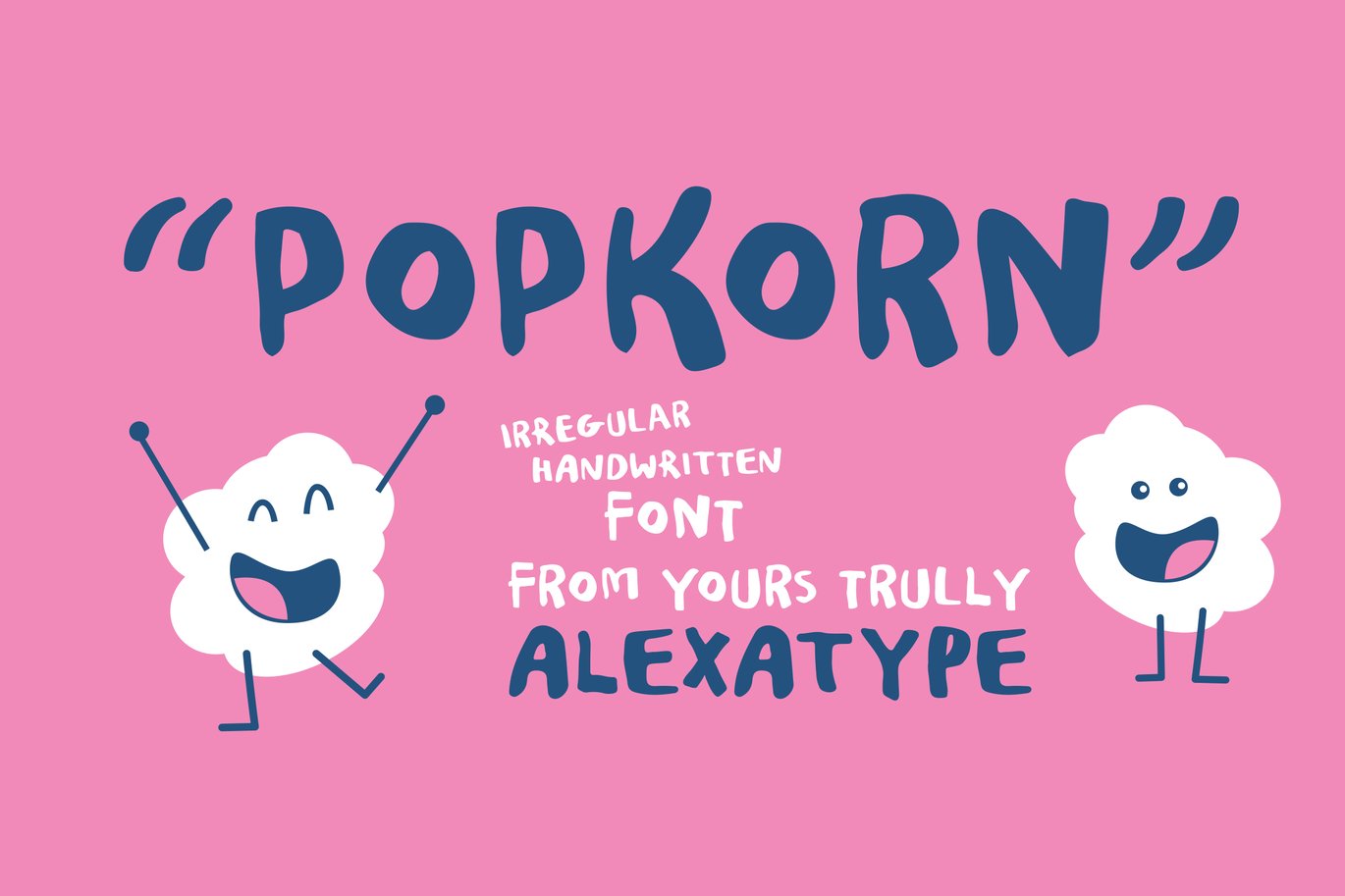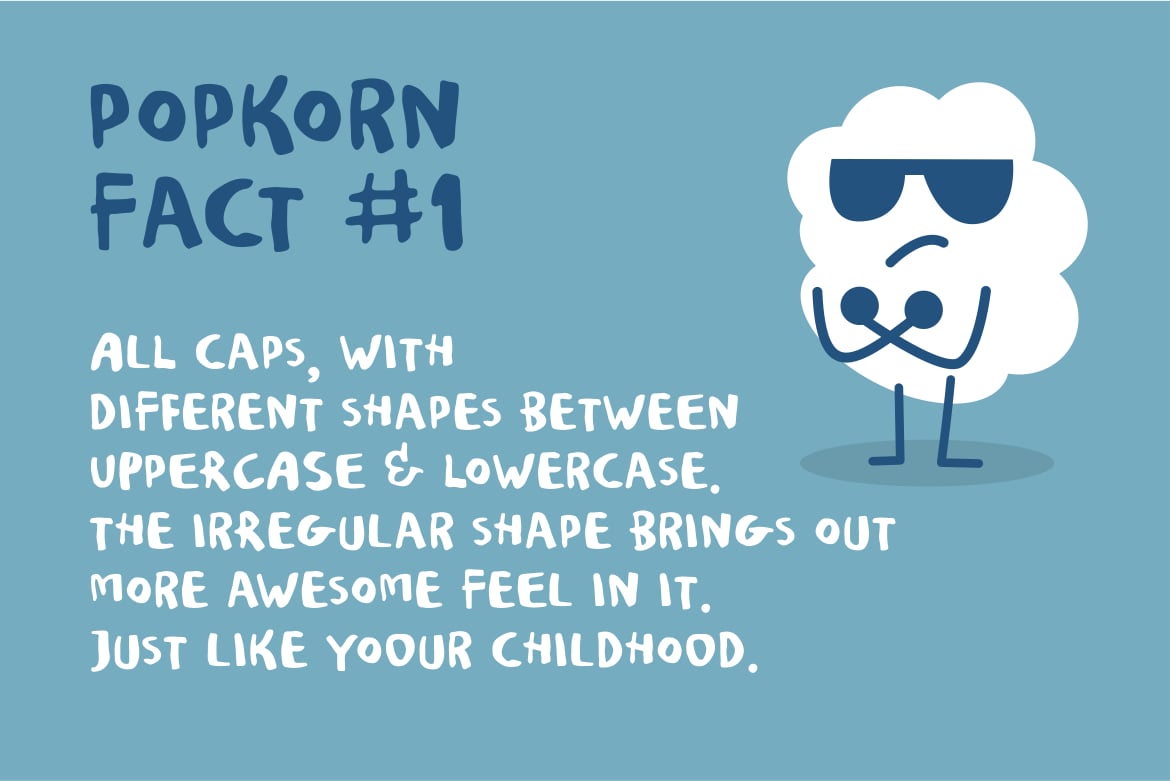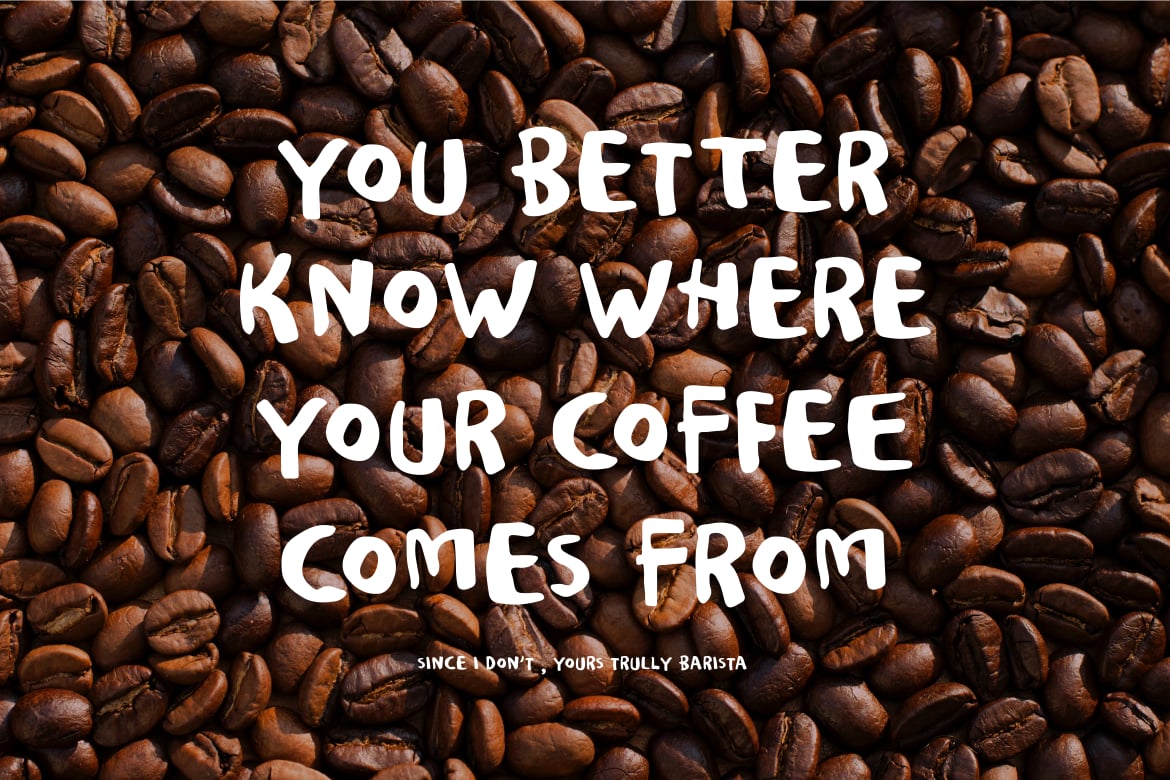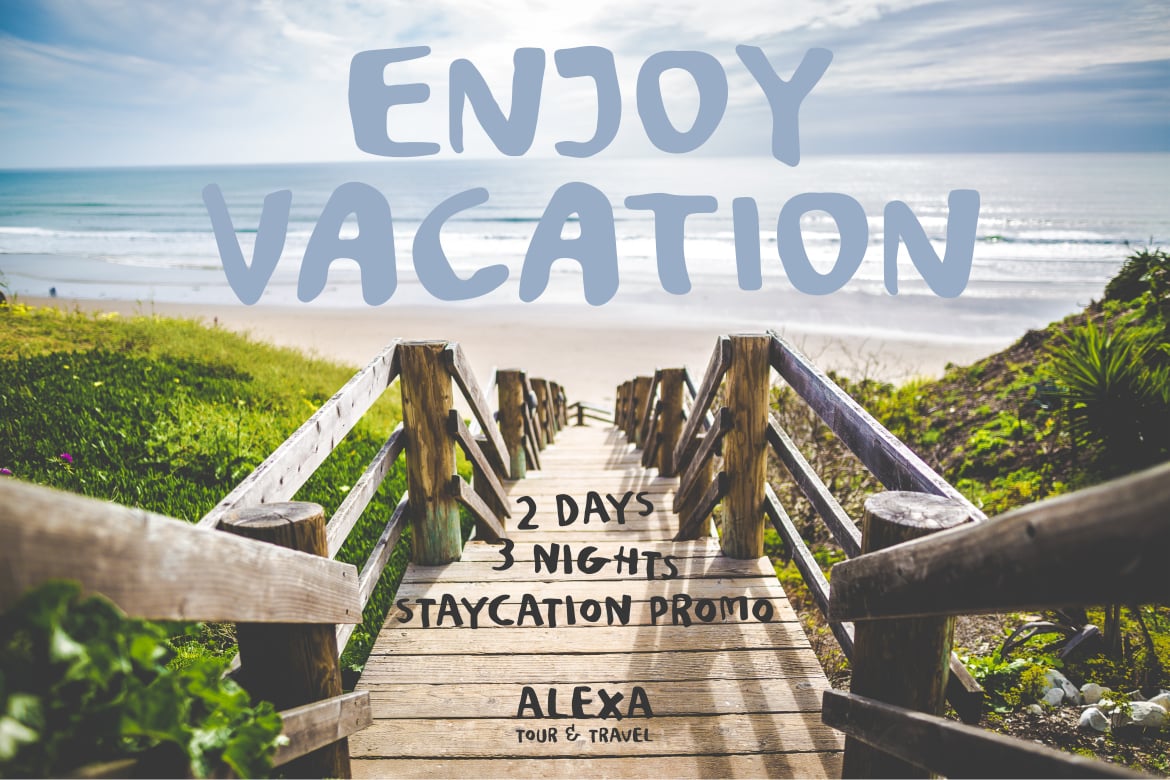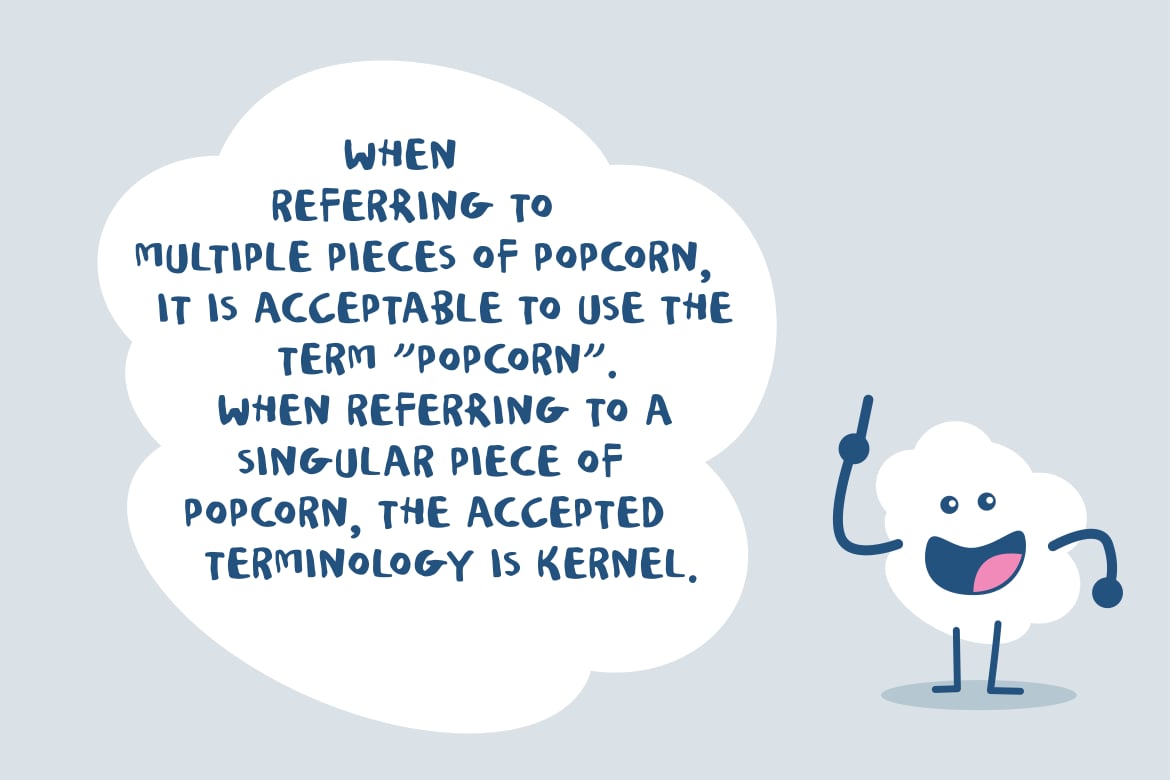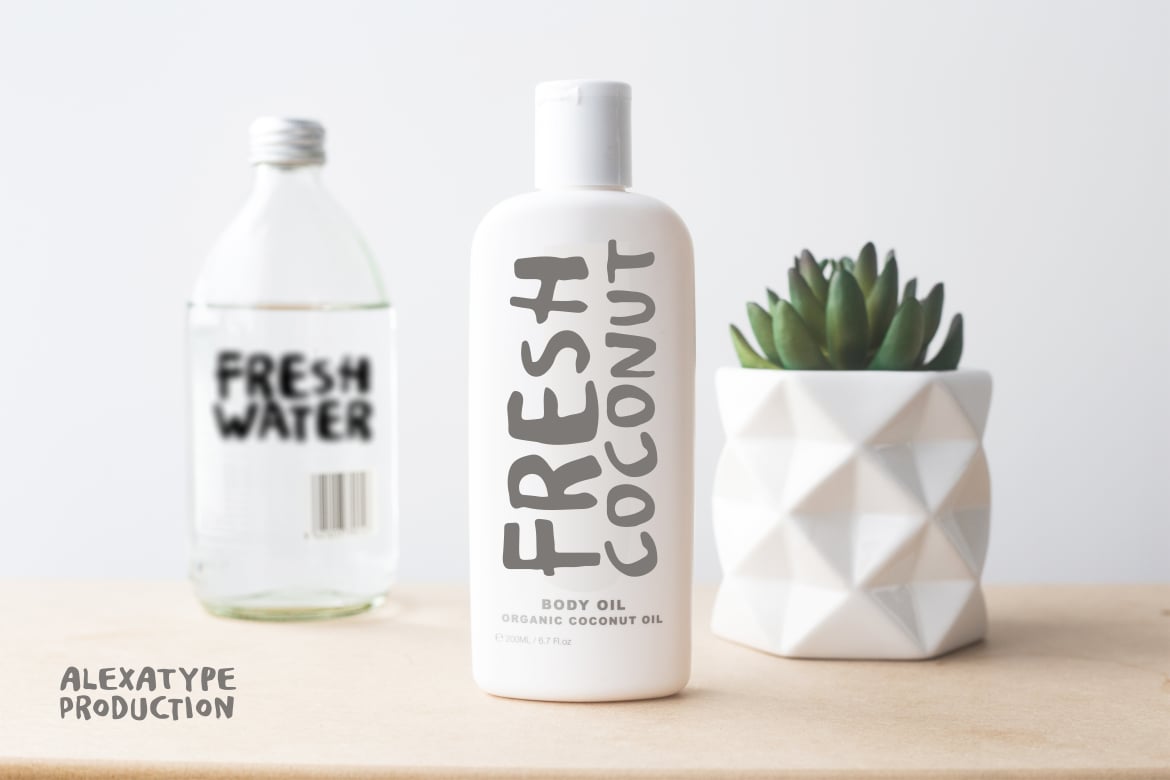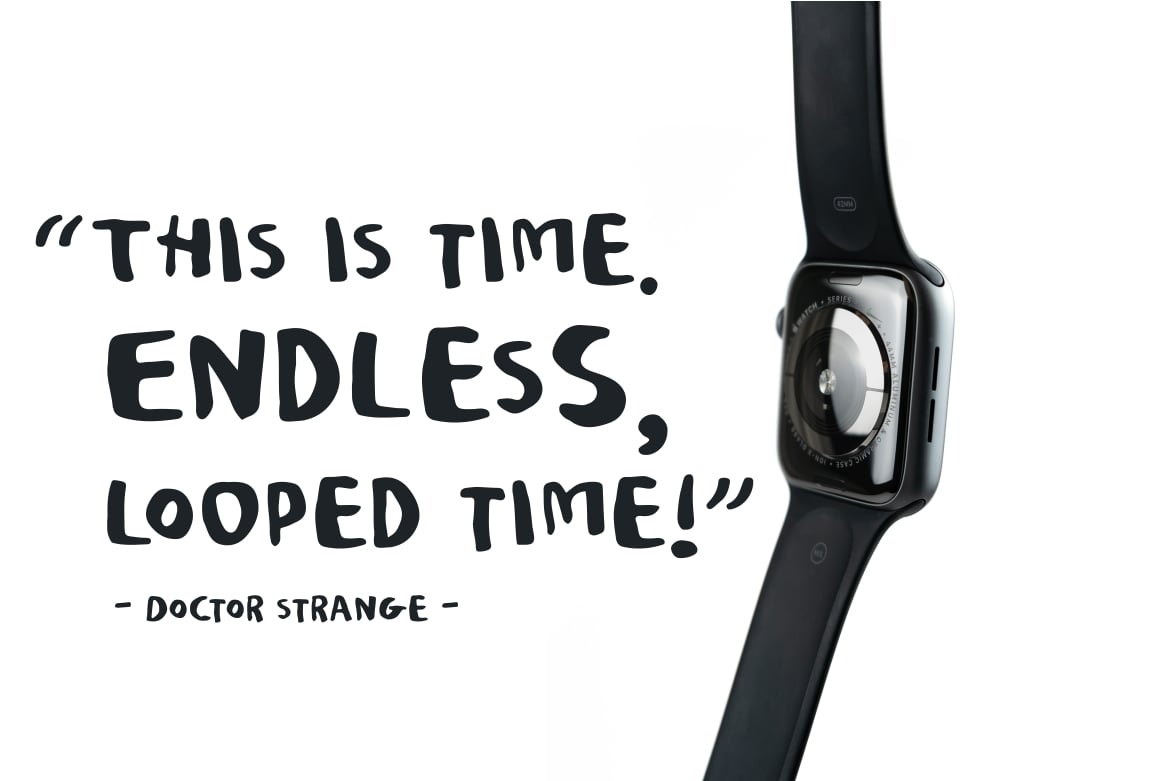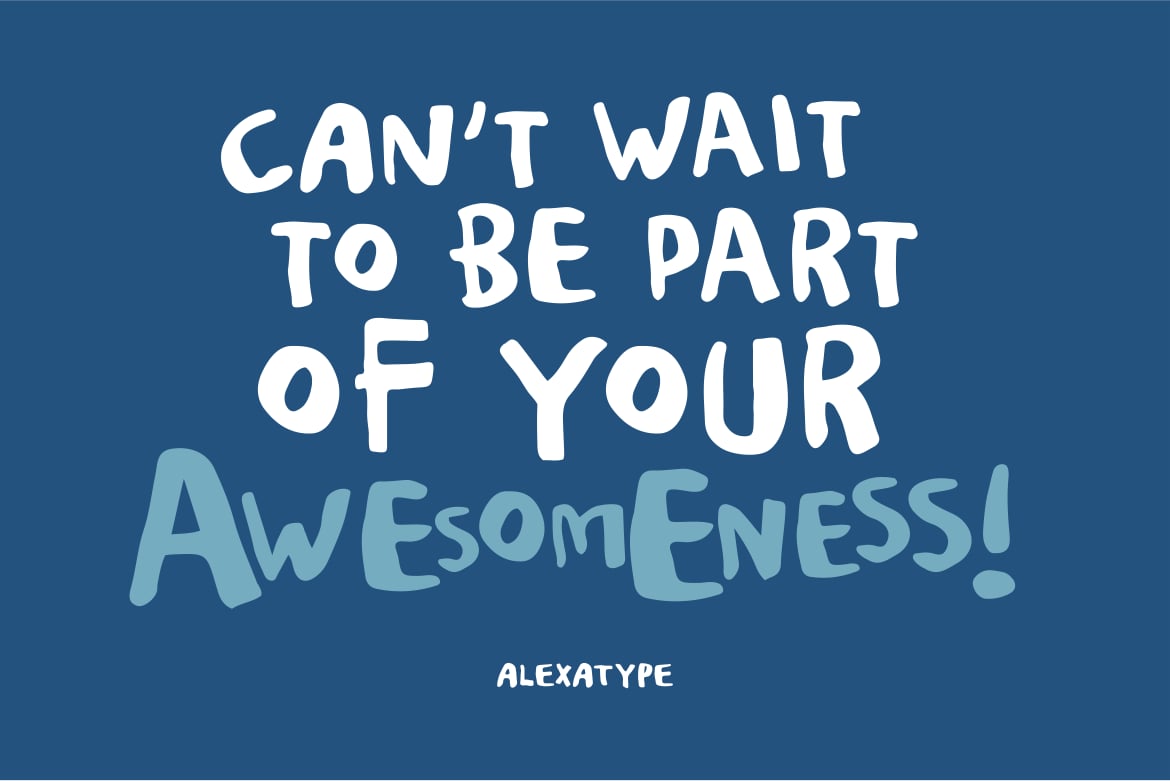
Handwritten Marker Font – Popkorn
POPKORN is a joyful, irregular handwritten marker font that bounces with personality and imperfect charm. With a chunky feel, playful rhythm, and friendly curves, POPKORN feels like a doodle straight from a kid’s notebook or a quirky snack label.
It’s built for children’s packaging, fun quotes, playful social media posts, birthday invites, coffee shop displays, and creative product labels. This font thrives in spaces that value spontaneity, friendliness, and a smile-inducing voice.
Its varied letter sizes and imperfect alignment are intentional, giving designs a handcrafted, expressive vibe—perfect for brands that don’t take themselves too seriously (in the best way).
POPKORN brings the fun to the font game—bold, bouncy, and bursting with feel-good vibes. Whether you’re designing for kids, cafes, or creatives, this font adds instant joy and personality.
- Handwritten Marker Style – Irregular and friendly for informal, approachable messaging
- All-Caps Font with Quirky Balance – Varied baselines and proportions that feel dynamic
- Perfect for Kids, Food & Fun Brands – Works great on packaging, signage, and digital content
- Easy to Read Yet Full of Personality – Each letter retains clarity while keeping a fun twist
- Pairs Well with Simple Sans or Bold Icons – Let POPKORN shine while keeping layouts balanced
- Use in Digital & Print – Equally effective for posters, banners, cards, and social posts
POPKORN is your go-to mood-booster font, ready to lift your brand voice and connect with joyful audiences.